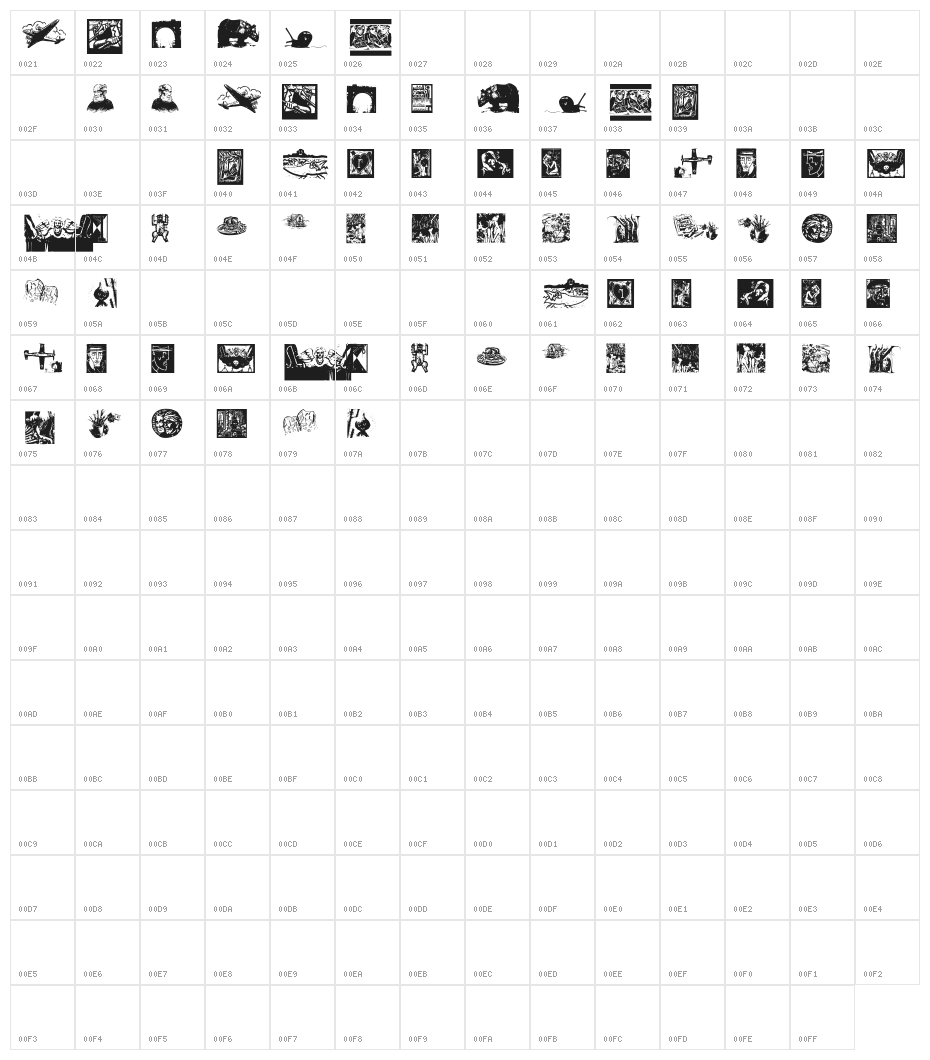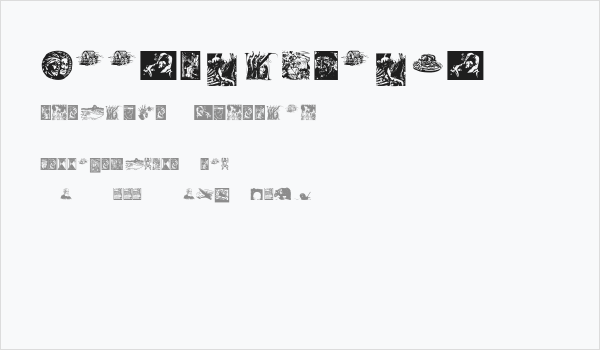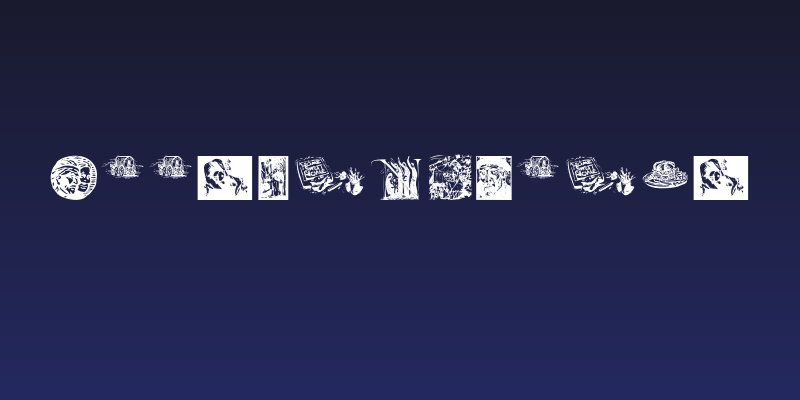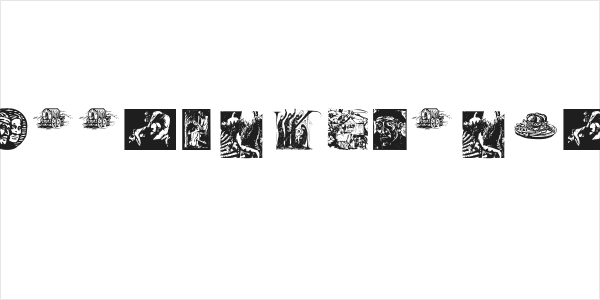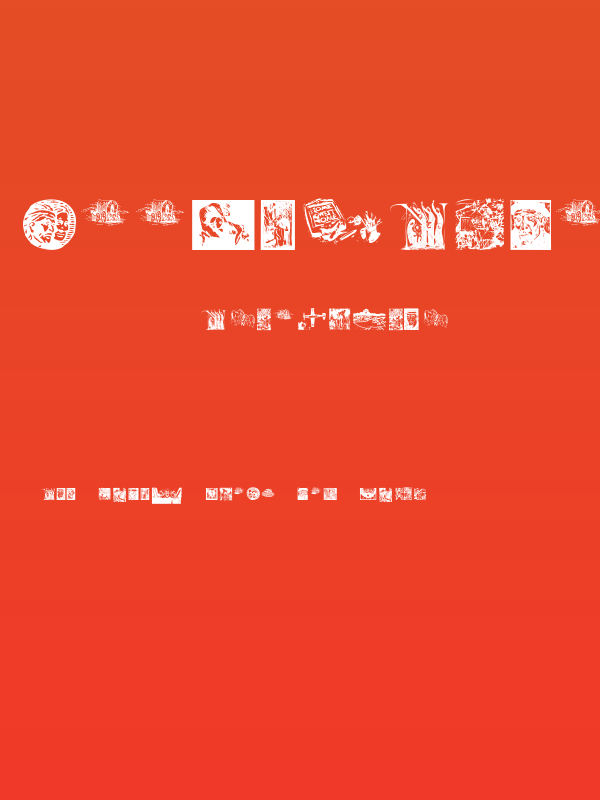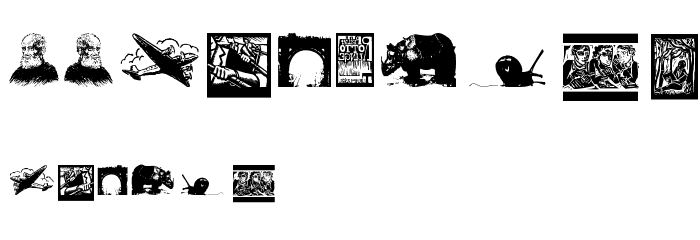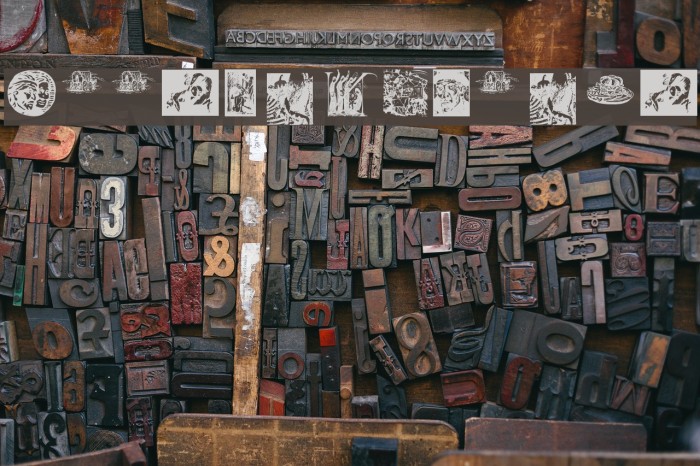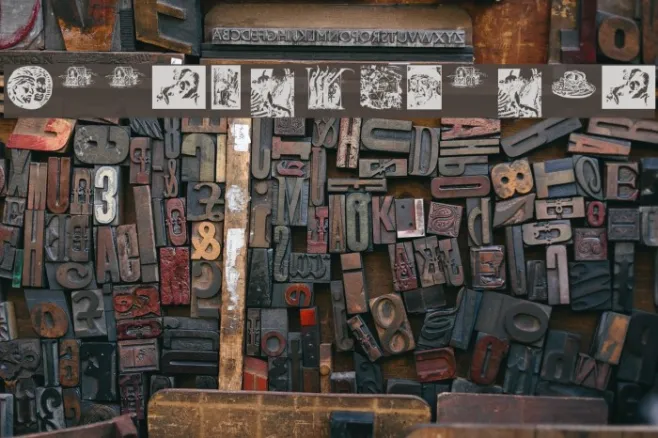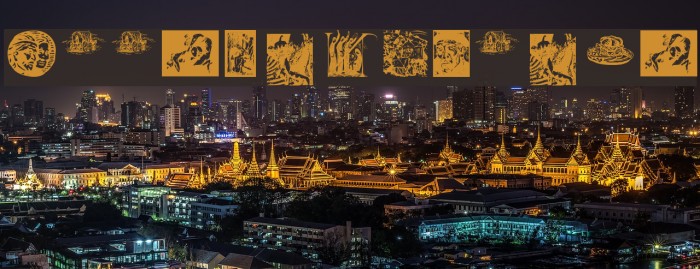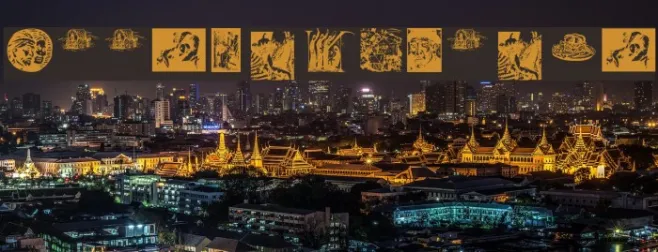
WoodcutsFound Font
WoodcutsFound Description
A collection of highly detailed, black-and-white woodcut-style illustrations featuring a variety of scenes, figures, animals, and objects, each enclosed in a square or rectangular frame. The images have a strong contrast with bold, rough lines and intricate textures, evoking a historical or vintage printmaking aesthetic.
| Overall Style | Vintage, Decorative, Artistic |
| Use Case | Decorative elements, Illustrations, Thematic graphics |
| Proposed Projects | Book covers, editorial illustrations, posters, album art, historical or educational materials, decorative prints. |